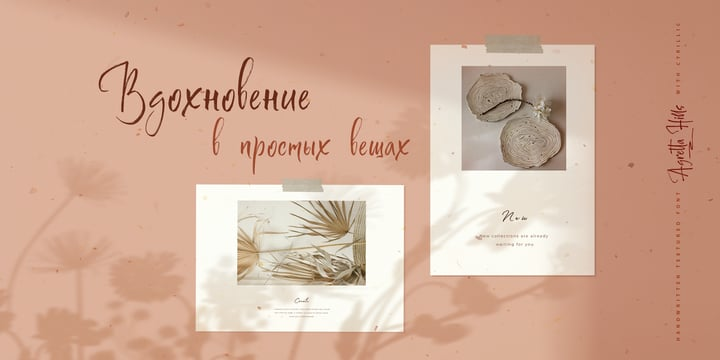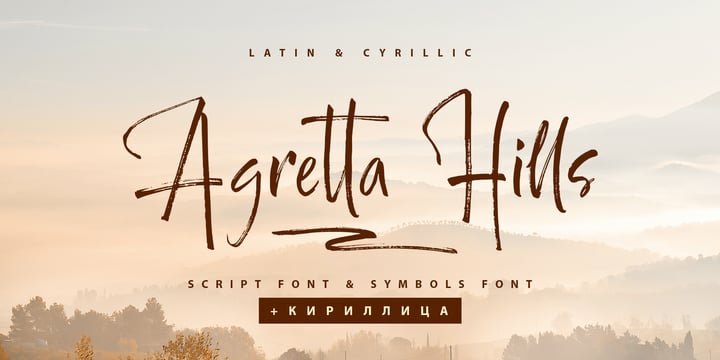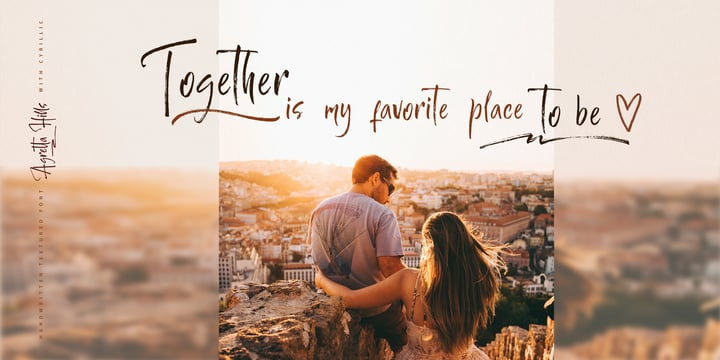
Agretta Hills Font FamilyAgretta Hills Cyrillic Textured Script Font adds hand look style to all your design projects: logos, signatures, labels, packaging design, and blog headlines. Also, it will look great in mugs, cards, gorgeous typographic designs, wedding stationery, and much more.
An additional font Agretta Hills Symbols can help you to make a lot of pretty designs and logos.
Agretta Hills script includes a full set of uppercase and lowercase letters, numerals, a large range of punctuation, and 16 ligatures, giving a realistic hand-lettered style.
The Cyrillic part of the font contains the uppercase letters and lowercase letters and 16 ligatures, giving a realistic hand-lettered style.
Agretta Hills Symbols is a font with over 36 unique, hand-drawn elements and swashes that can help to make your design more original.
A different symbol is assigned to every uppercase or lowercase standard character plus numbers 0-9 so you do not need graphics software just simply type the letter you need.